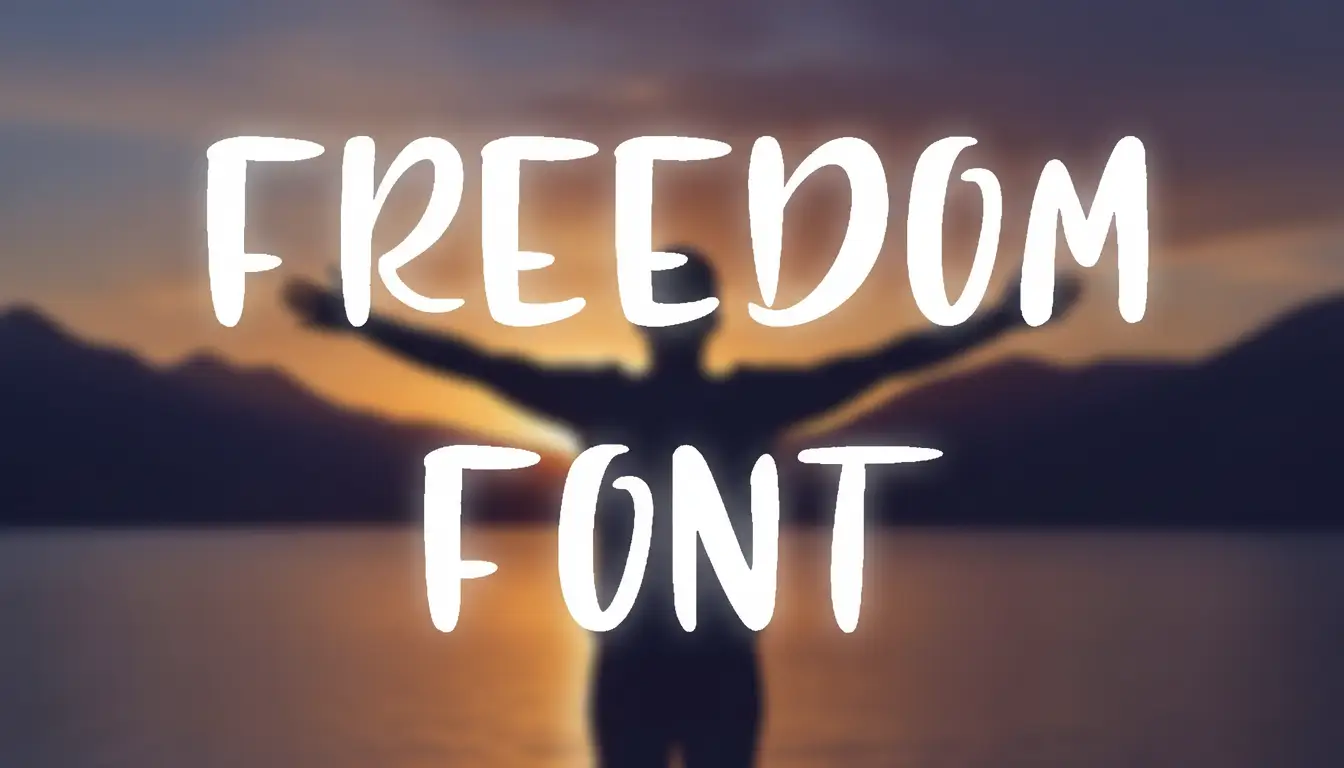
Freedom Font
Signature-style logos, romantic greeting cards, and customized t-shirt prints.
Freedom is a script font made by Donis Miftahudin. It has that hand-lettered, flowing feel people look for when regular type seems too stiff. It's a free download, and you can try it with your own text in the preview above first.
What You Can Type With Freedom
With complete upper and lowercase letters and all ten digits, Freedom is ready for real wording, not just a single headline. Common punctuation such as &, !, ? and @ is included as well. It also has the accented letters you need for Spanish, French, German, Portuguese and Italian.
Where Freedom Works Best
Designers usually reach for fonts like Freedom when they're making wedding invitations, logos and signature-style headings. Script fonts read best in short bursts, so keep it to names, titles and one-line quotes. Skip all caps: script capitals are drawn to start a word, not to fill one.
Does Freedom support accented letters?
Yes. Freedom includes the accented letters needed for Spanish, French, German, Portuguese and Italian, so it works for more than just English.